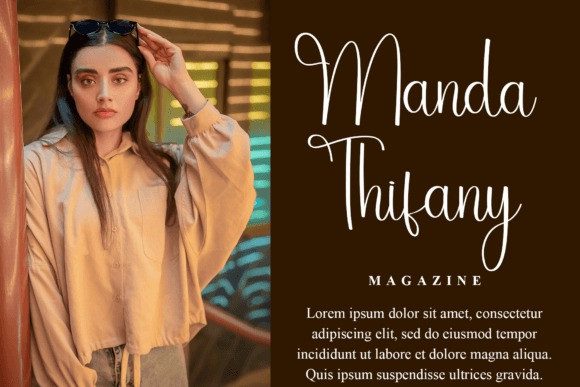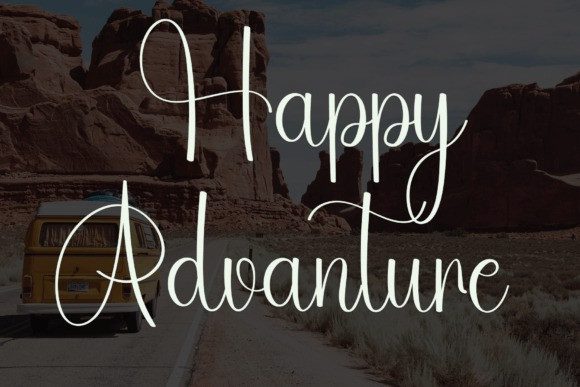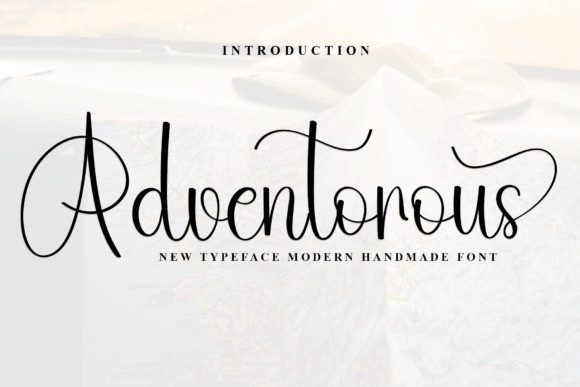
Adventorous Script Font
Adventorous Script Font is a lovely and timeless handwritten font. It is the best choice for creating eye catching logos, branding and quotes. Every letter has a unique and beautiful touch, which will make your design come alive!